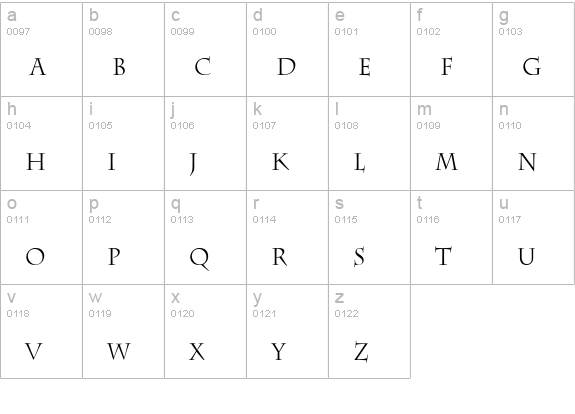
Chaz Condensed Normal Font Details
Chaz Condensed Normal is the standard, neutral, condensed-width variant in the Chaz typeface family \xE2\x80\x94 well suited to general body text, paragraphs, and standard typographic work.
Chaz Condensed Normal font is a sleek and modern typeface that exudes sophistication and elegance. With its clean lines and minimalist design, this font is perfect for a wide range of design projects, from branding to editorial work. The condensed style adds a touch of refinement, making it ideal for creating a polished and professional look. Best of all, Chaz Condensed Normal font is completely free to download at FontsMarket.com. Whether you're a designer looking to add a new font to your collection or a business owner searching for the perfect typeface for your branding materials, Chaz Condensed Normal font is a versatile and stylish choice that won't cost you a penny. Download it today and elevate your designs with this stunning and free font.